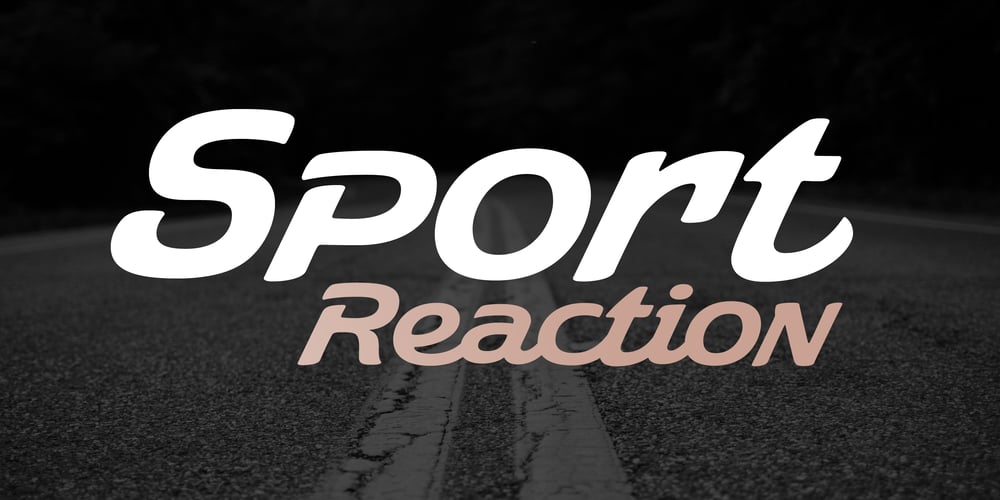
Coche Font Family was designed by Alejandro Paul, Angel Koziupa and published by Sudtipos. Coche contains 1 styles and family package options. Coche is a different kind of work from Koziupa and Paul. It is a connected script with a strong corporate feeling that aims to fill a gap in modern product branding. Coche means automobile, and one can easily envision a car’s logo set with this font. Coche comes loaded with alternates and a complete set of small caps that nicely complement the caps and lowercase. This is the font for the modern designer-as-jockey who loves mix-and-play typography. Coche covers all Latin-based languages.